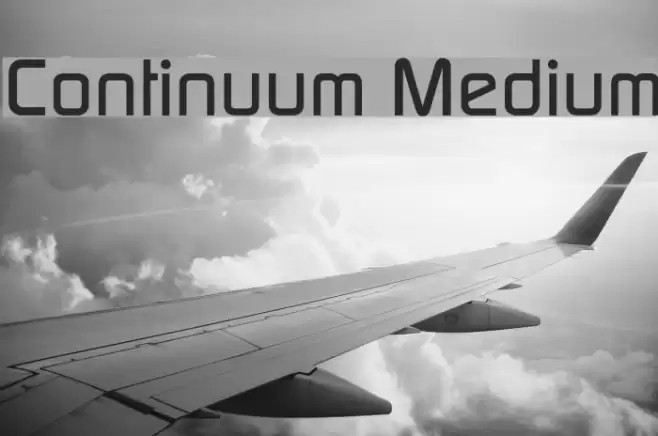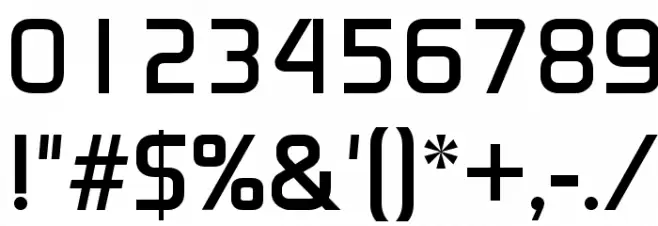
Continuum Medium Font
Continuum Medium Description
This font features a sleek, modern design with a geometric structure. The characters are clean and well-defined, offering a futuristic aesthetic. The uppercase letters are uniform in height, while the lowercase letters maintain a consistent baseline, providing a harmonious flow. The numerals are distinct and easily readable, complementing the overall style. Special characters are crafted with precision, maintaining the font's cohesive look. The font's simplicity and clarity make it versatile for various applications.
A modern, geometric font with a sleek and clean design from Uncategorized fonts.
- Proposed Projects: Ideal for technology branding, modern web design, and innovative product packaging.
- Use Case: Headlines, Logos, Digital Interfaces